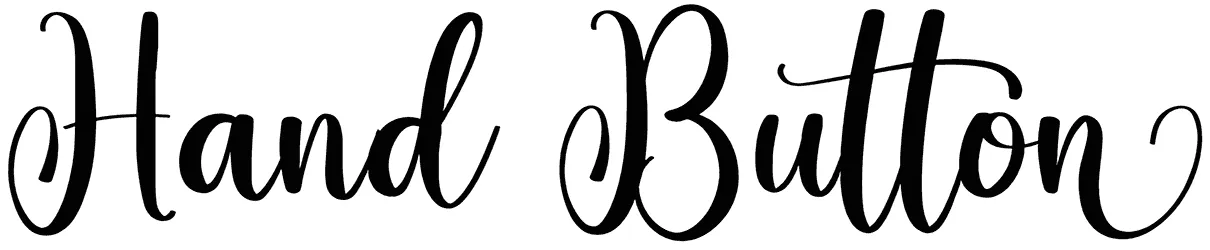
Hand Button Font
What your design needs to communicate a message in a friendly mood is a like this one. The smooth lines of this curvy font can give a delicate and sweet feeling to your words. Set Hand Button font on your novel layouts, such as a birthday invitation, Instagram story, and share your special moments with your followers.
This font retains a classy calligraphic influence while feeling contemporary and fresh. This versatility will attract a wide range of creative ideas, from letterheads and titles to stationery. _________________________________________________________________________ WARNING!!!